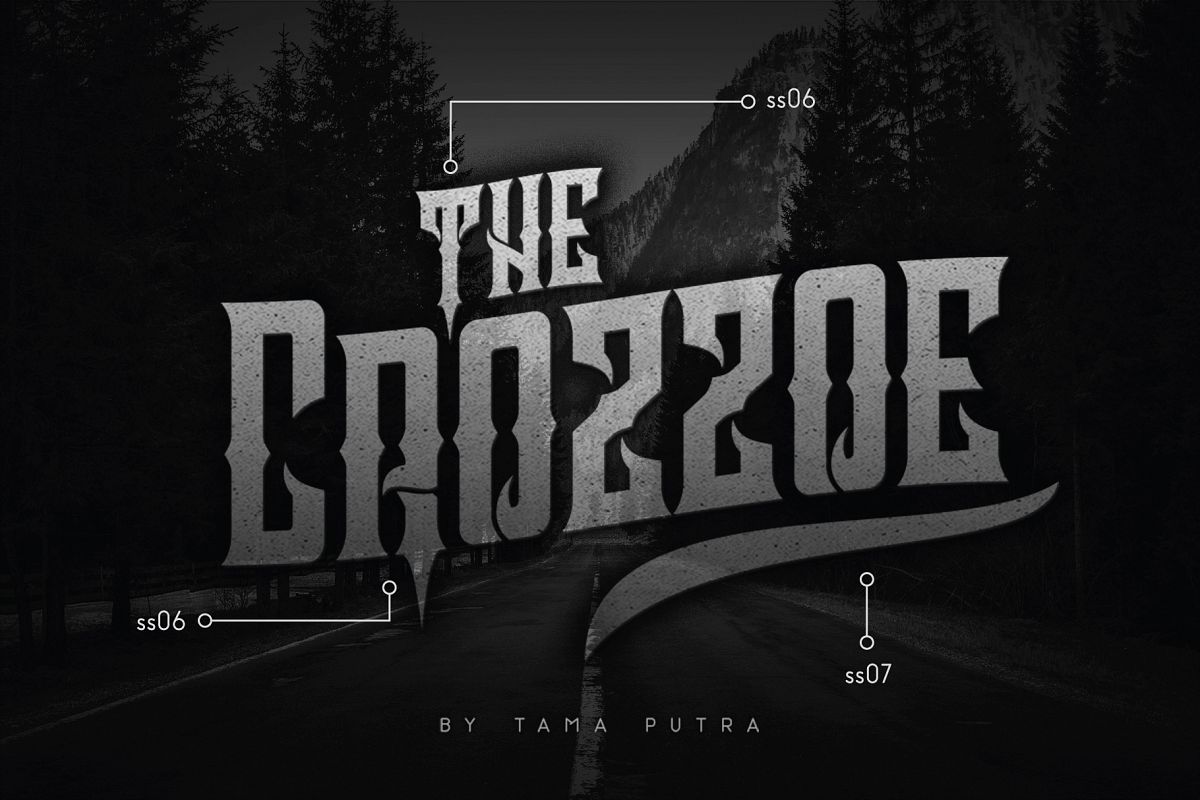
Crozzoe Typeface
Crozzoe is a blackletter typeface. The Crozzoe
typeface includes a full set of uppercase and lowercase letters as well
as multi-lingual and currency support, numerals, punctuations,
alternates, ligatures and some extra glyphs.